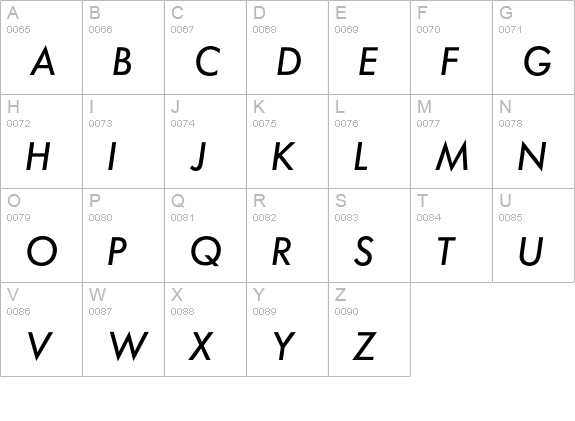
Futura BQ Medium Oblique Font Details
Futura BQ Medium Oblique is a balanced, medium-weight, italic variant in the Futura typeface family \xE2\x80\x94 well suited to sub-headlines, navigation, and balanced editorial work.
Futura BQ Medium Oblique font exudes elegance and modernity with its sleek, slanted design. The perfect balance of style and readability, this font is ideal for adding a touch of sophistication to any project. Its bold yet graceful appearance makes it suitable for a wide range of applications, from branding to editorial design. Best of all, Futura BQ Medium Oblique font is available for free download at FontsMarket.com. Whether you're a designer looking to elevate your creations or a business seeking a polished look for your branding, this font offers a versatile and professional solution. Don't miss out on the opportunity to enhance your work with this timeless typeface, now easily accessible for free at FontsMarket.com.